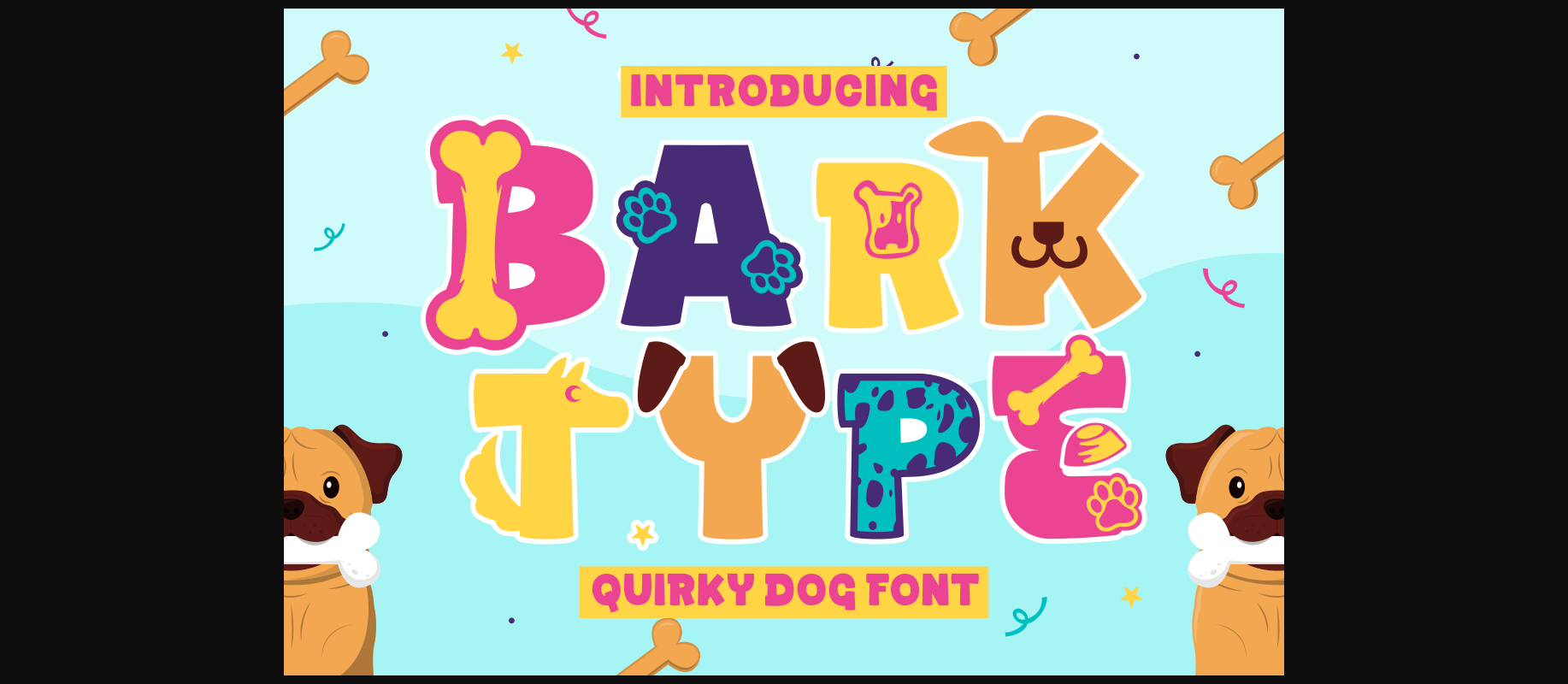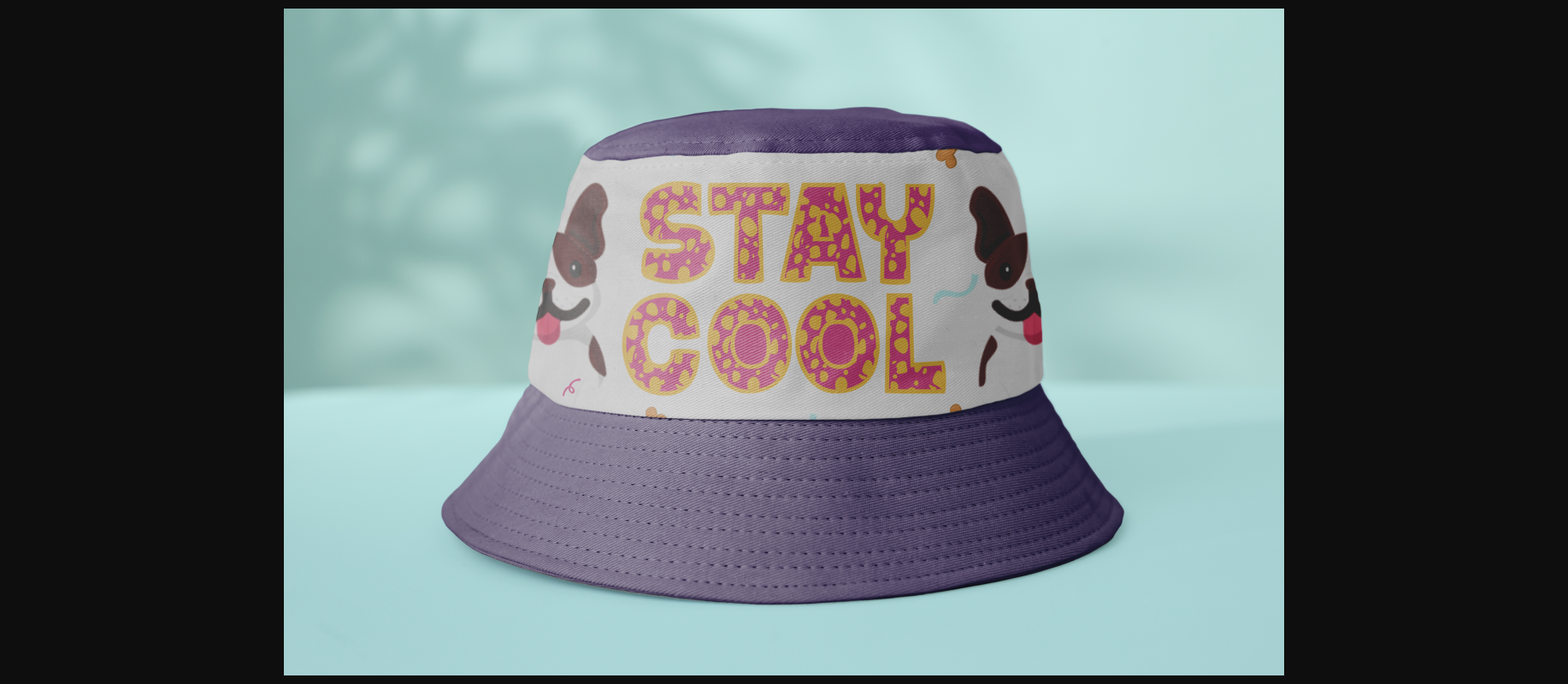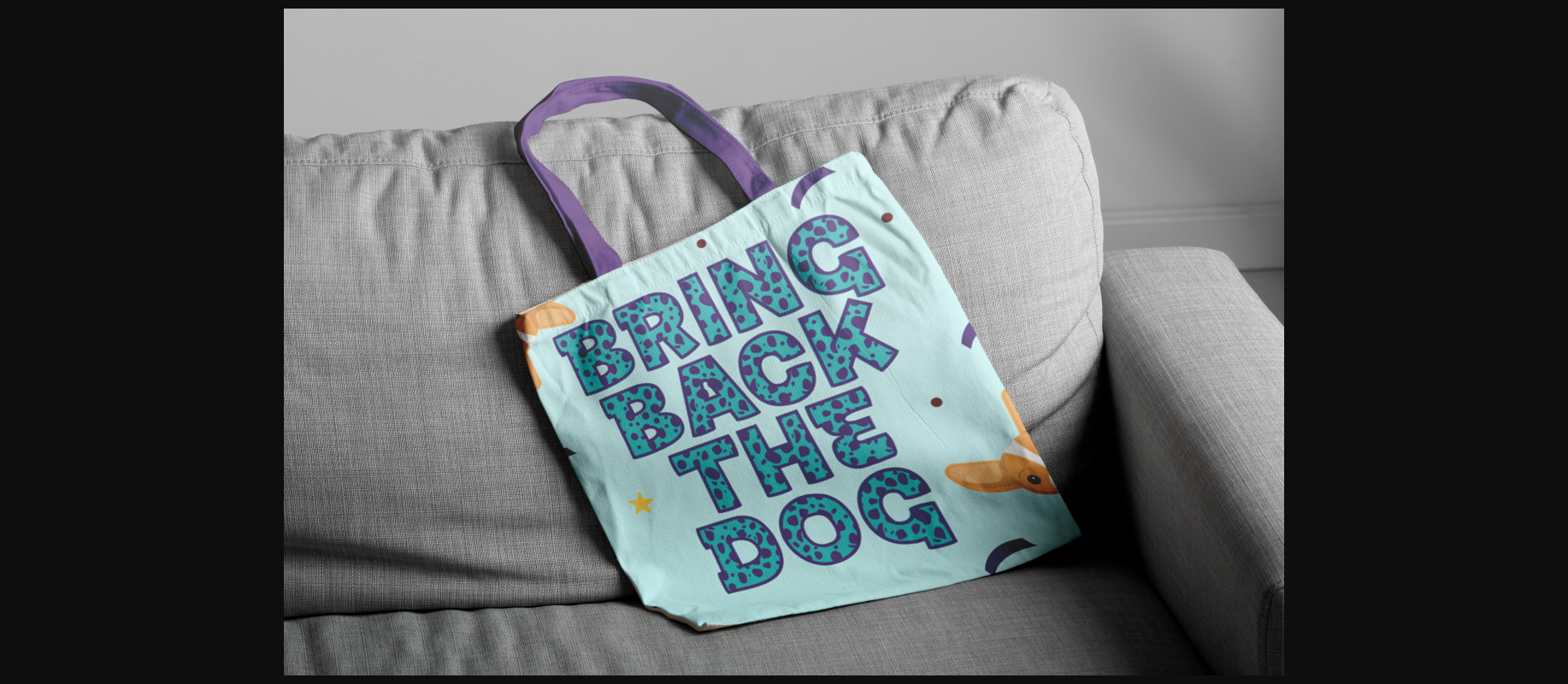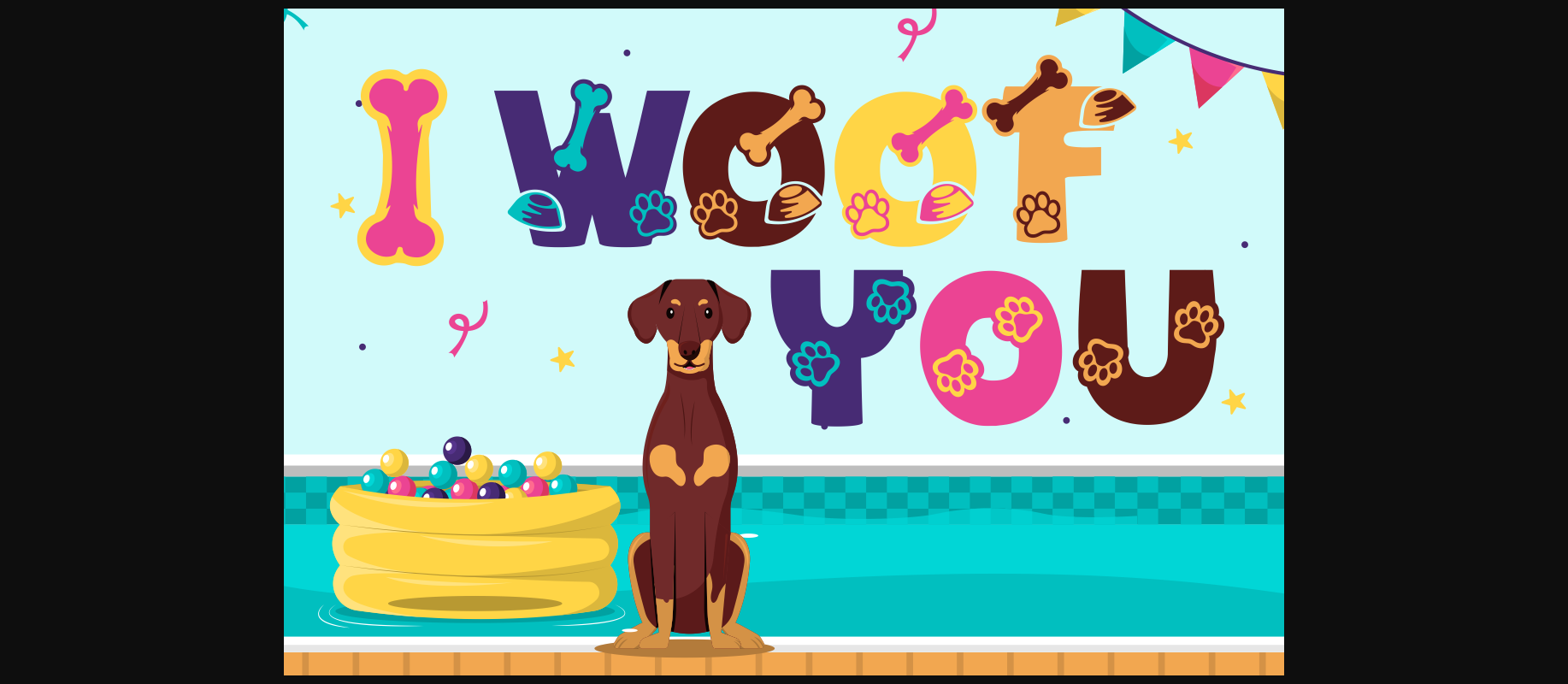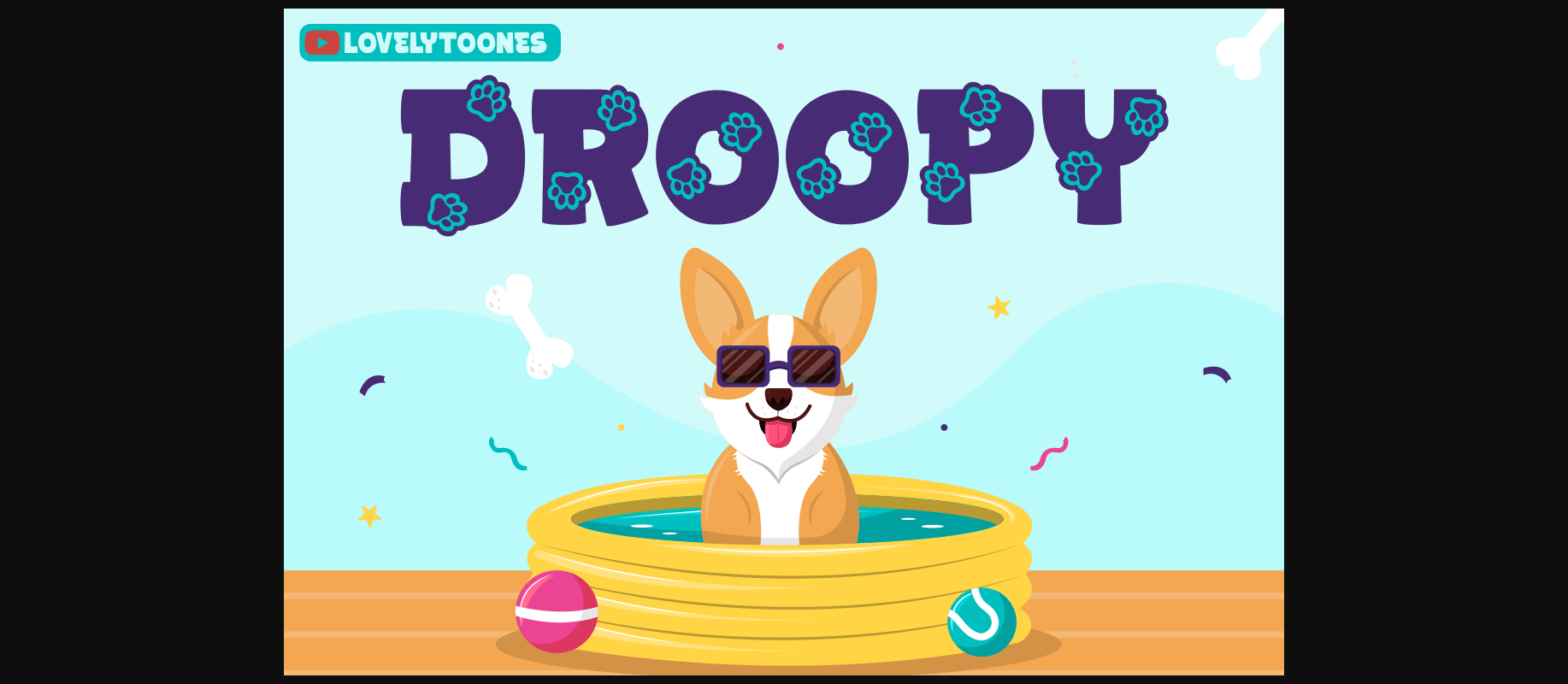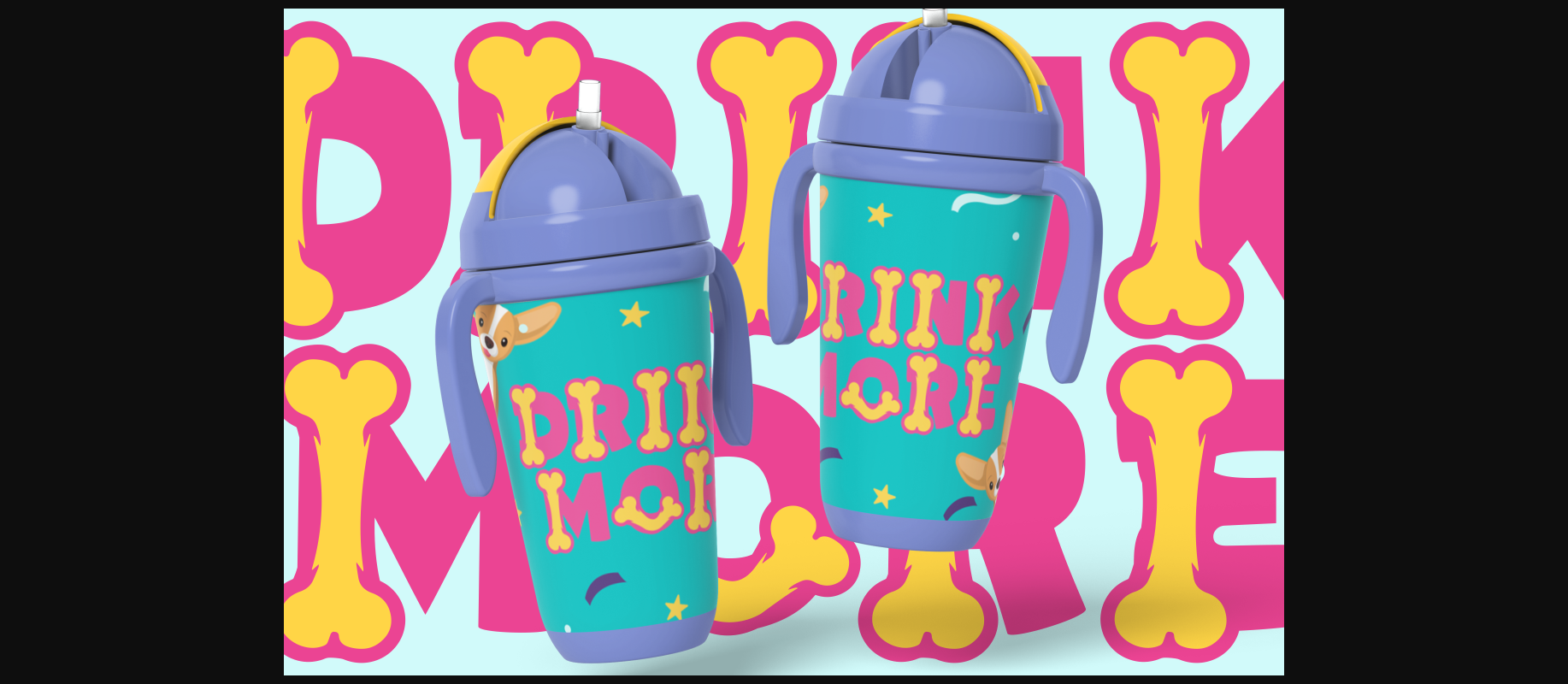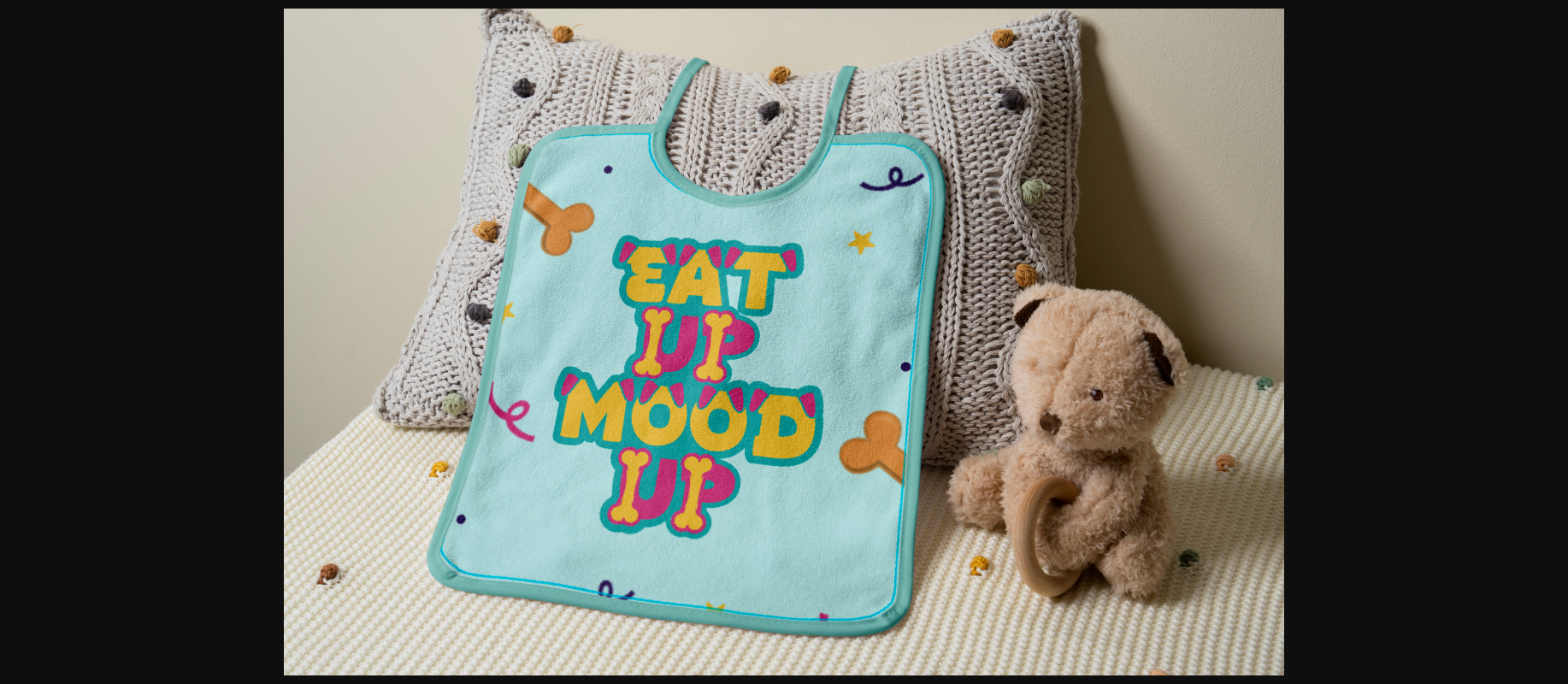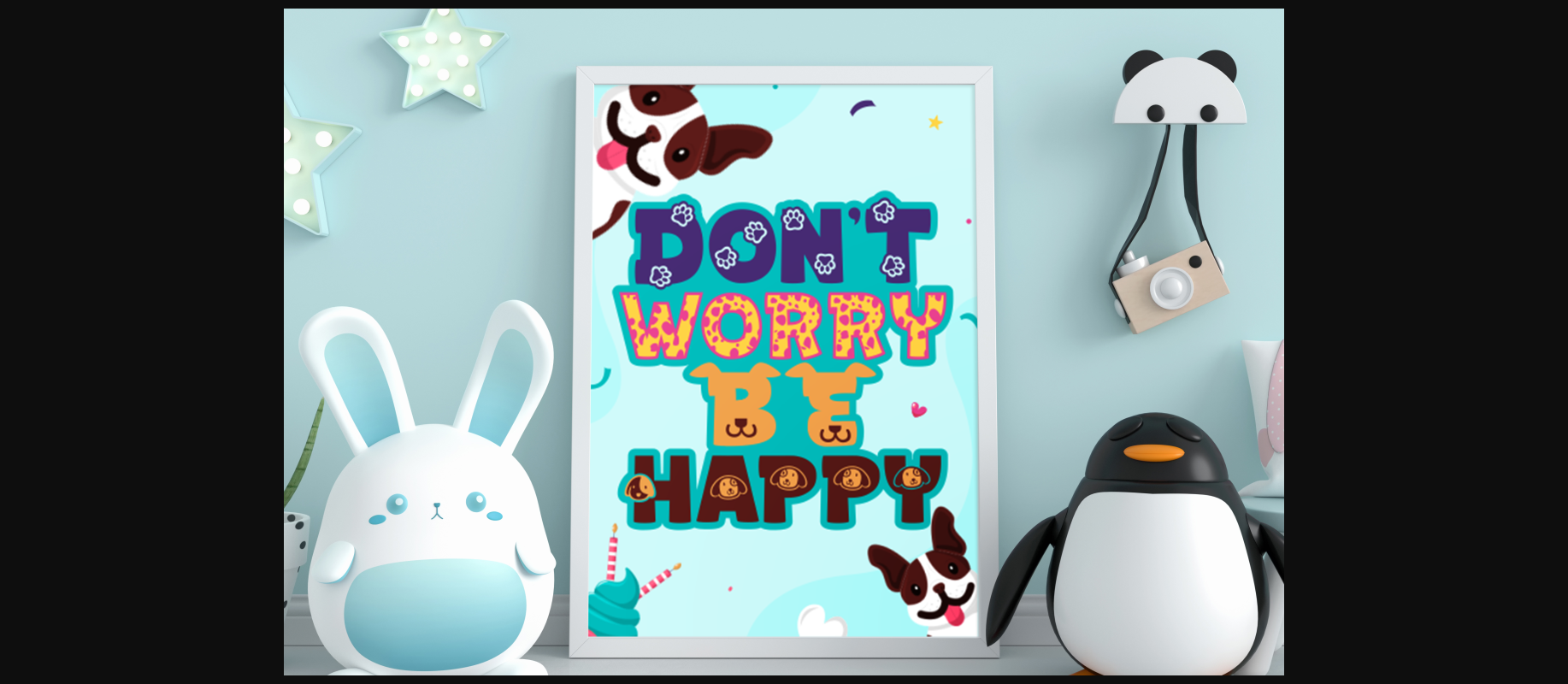
About Bark Type Font
Introducing “Bark Type – Quirky Dog Font,” a playful and bold typeface inspired by man’s best friend. This font is characterized by its fun, thick letters, making it a perfect choice for various applications. Each of the nine variations is meticulously crafted to resonate with the theme of dogs, animals, and playfulness. Whether used alone or combined, Bark Type promises versatility and visual appeal.
Ideal for children’s themes, crafting, invitation cards, packaging, posters, business branding, greeting cards, stickers, children’s books and magazines. Its distinct design ensures that it stands out in any context related to animals or specifically dogs. Every letter is infused with elements that echo the playful and loving nature of puppies – a delightful addition to your creative projects.